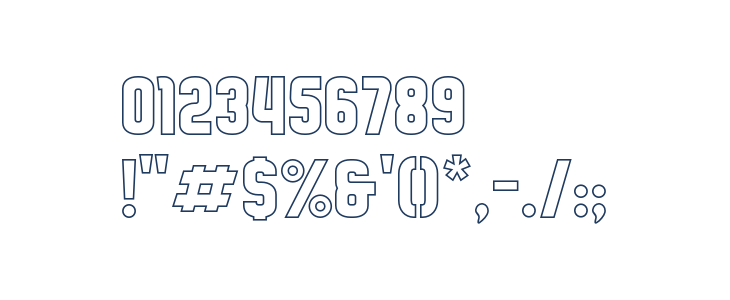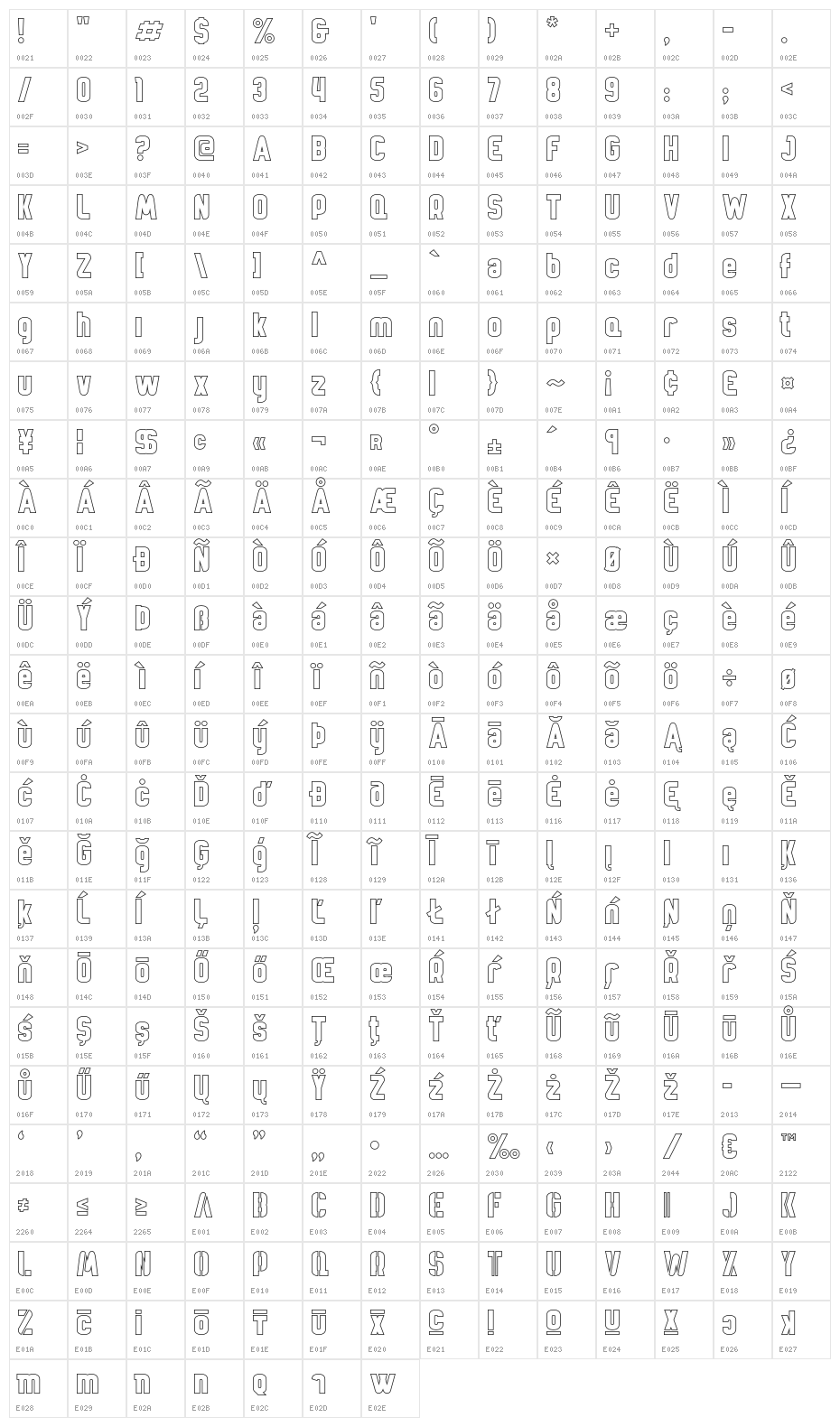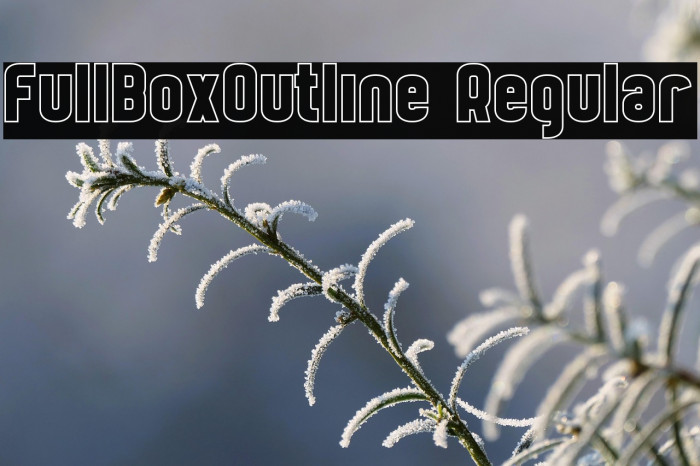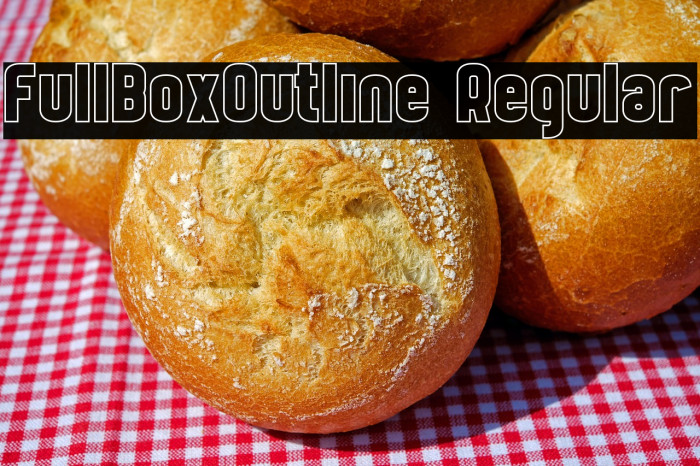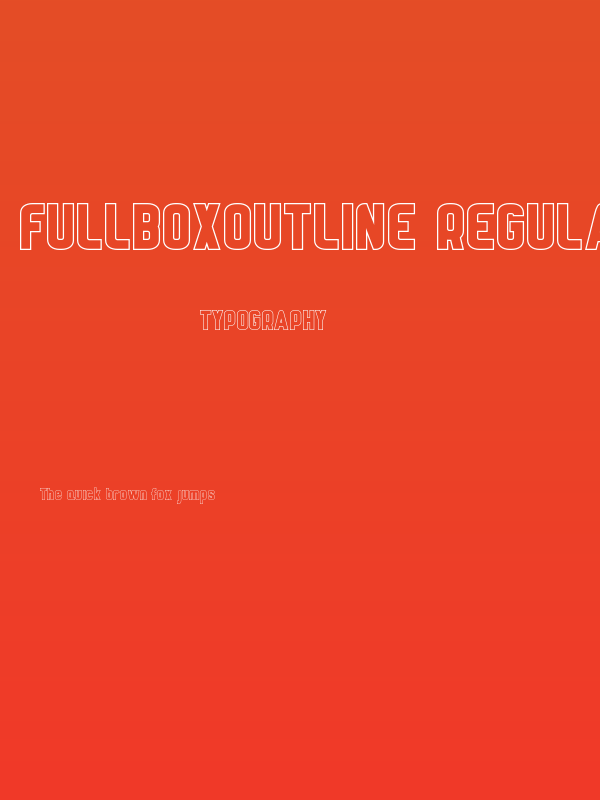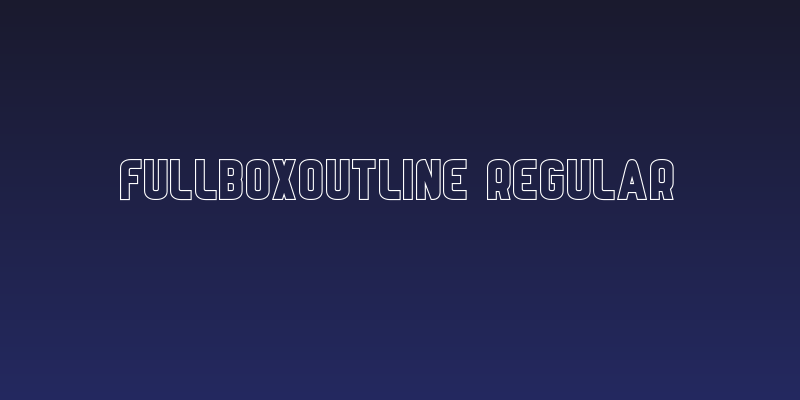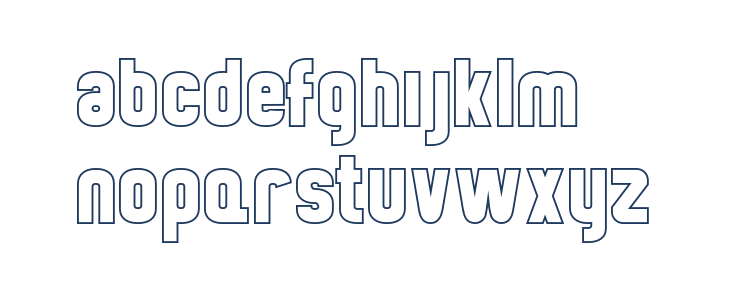
FullBoxOutline Regular Font
FullBoxOutline Regular Description
This font features a bold, geometric outline style that gives it a modern and striking appearance. The characters are constructed with clean, straight lines and sharp angles, creating a sense of structure and precision. The uppercase and lowercase letters maintain a consistent height and width, contributing to a uniform look. The numerals and special characters are designed to match the overall aesthetic, ensuring cohesion across all glyphs. This font's outline design allows for creative uses in various design projects, where the interior space of the characters can be filled with colors or patterns for added visual interest.